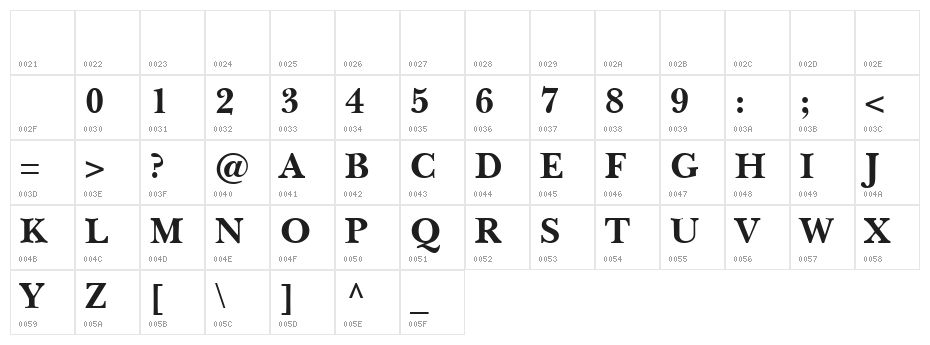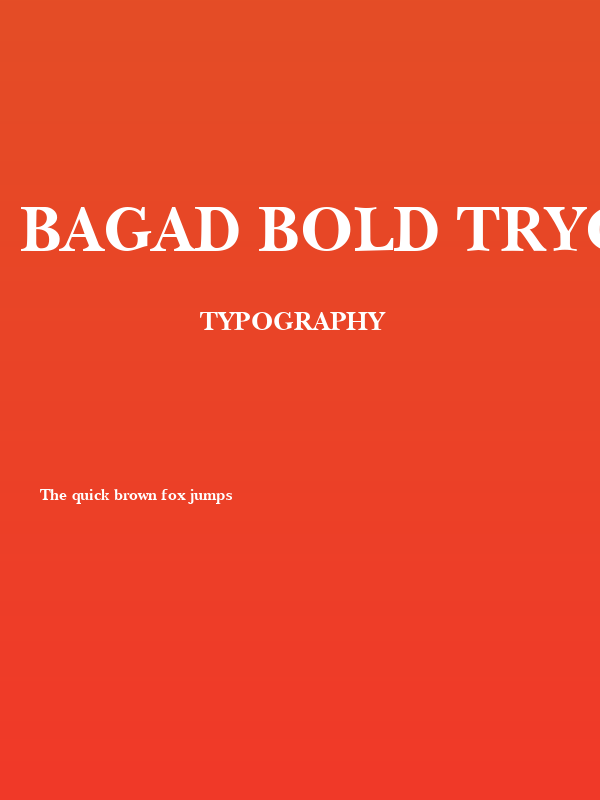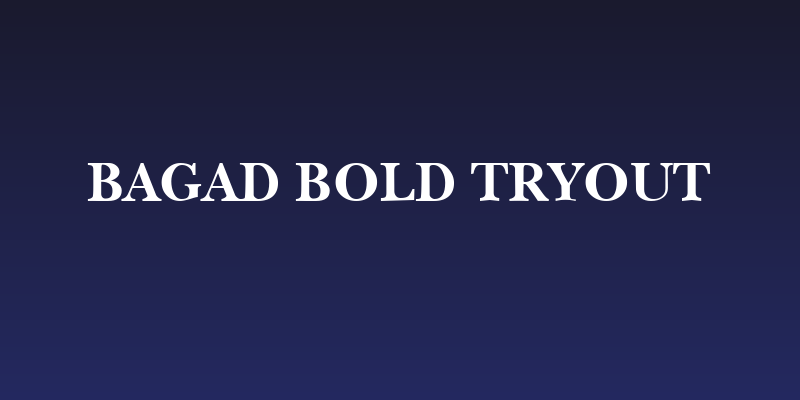
Bagad Bold Tryout Font
Bagad Bold Tryout Description
This font features a bold and commanding presence with its strong, thick strokes and classic serif design. The serifs are pronounced, adding a touch of elegance and tradition to the overall appearance. The uppercase letters are robust and authoritative, while the lowercase letters maintain a consistent weight, ensuring readability. The numerals are equally bold, making them stand out clearly. The special characters are designed with the same attention to detail, ensuring they integrate seamlessly with the rest of the typeface. This font is ideal for making a statement, whether in print or digital formats.
| Proposed Projects | Ideal for book covers, headlines, branding materials, and formal invitations. |